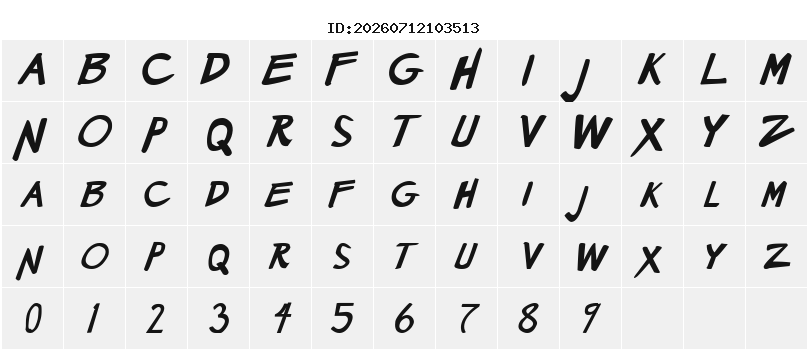
Manga speak 2 Preview
• Font Name: Manga speak 2
• Font Style: Gras Italique
• Font ID: Manga speak 2 Bold Italic:Version 1.00
• Full Font Name: Manga speak 2 Bold Italic
• Version: Version 1.00 March 30, 2014, initial release
• PostScript Name: Mangaspeak2-BoldItalic
About Manga speak 2.ttf
Manga speak 2.ttf is a modern, elegant sans-serif font designed for ultimate readability and visual harmony. Perfect for branding, headlines, web design, and print materials.